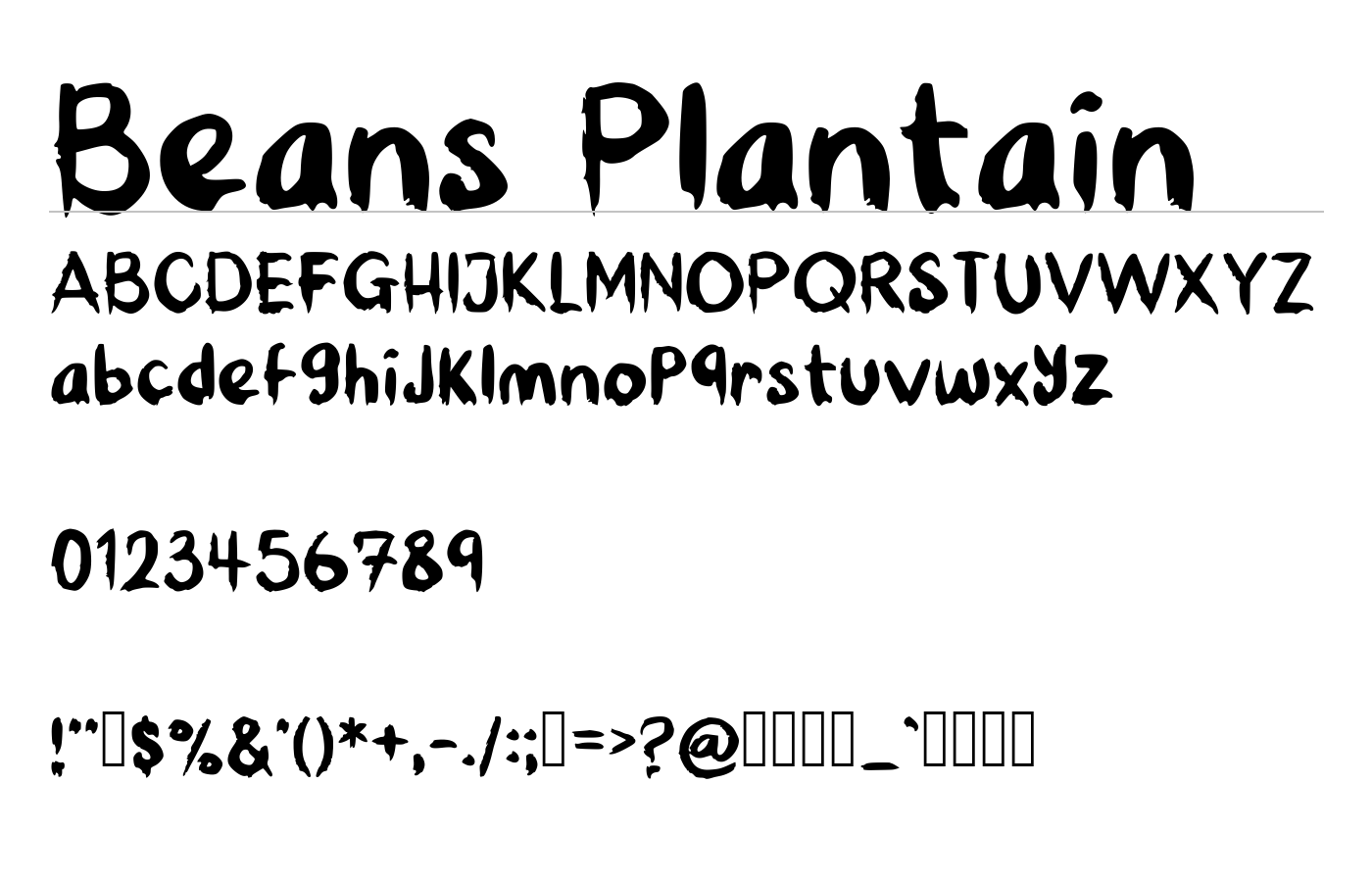
Beans Plantain is a playful and quirky sans serif font with a slightly irregular, hand-drawn style that gives it a casual, friendly vibe. Its irregular stroke thickness and slightly rough edges make it perfect for fun, informal designs such as children’s books, creative packaging, or lively posters where a warm and approachable personality is desired. This font works best in headlines and display use where its unique charm can shine and grab attention.
Beans Plantain Font
About Beans Plantain Font